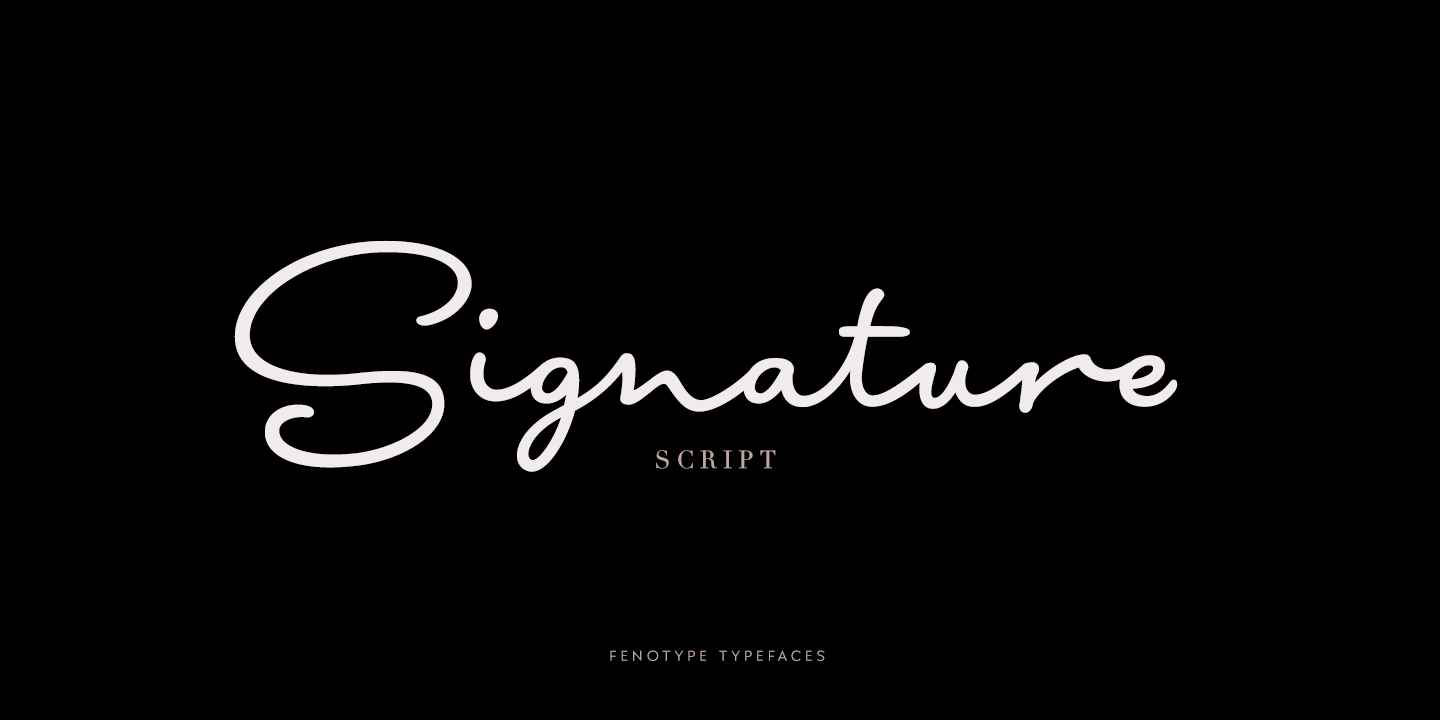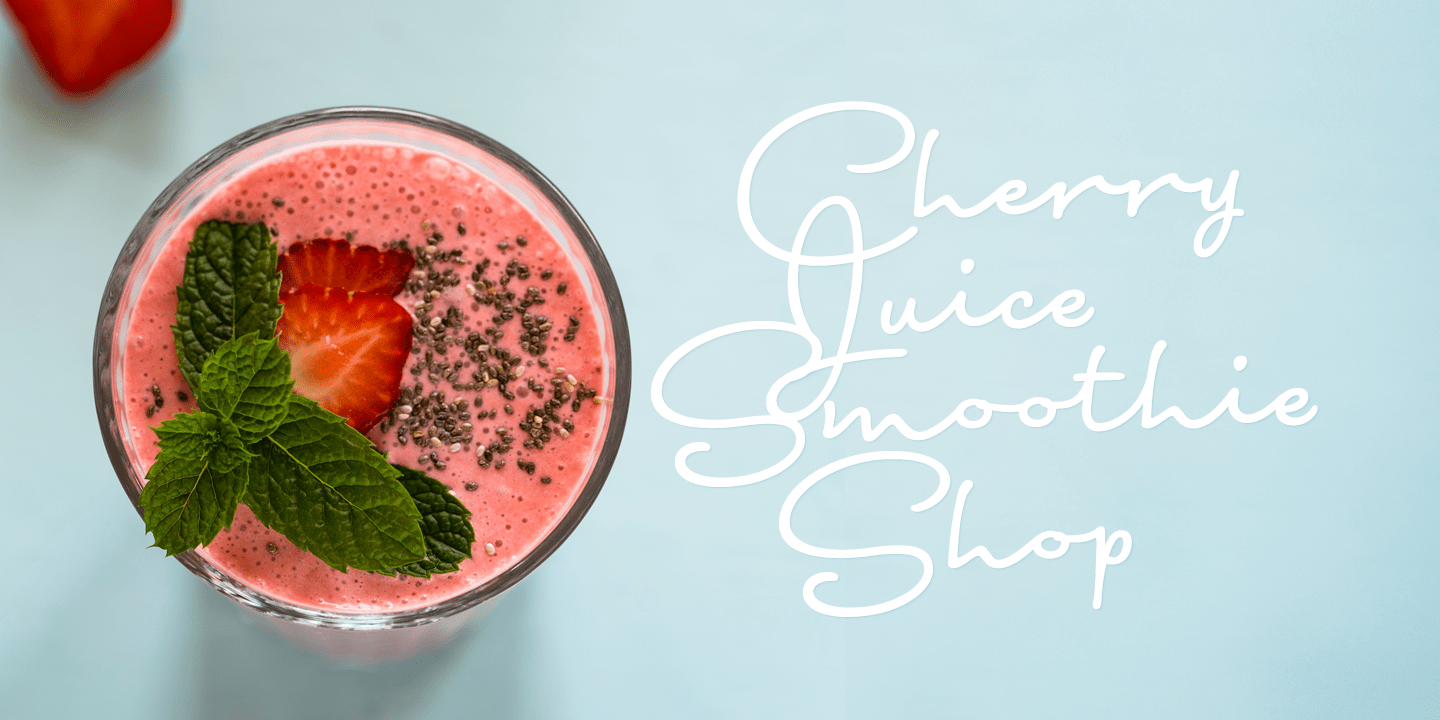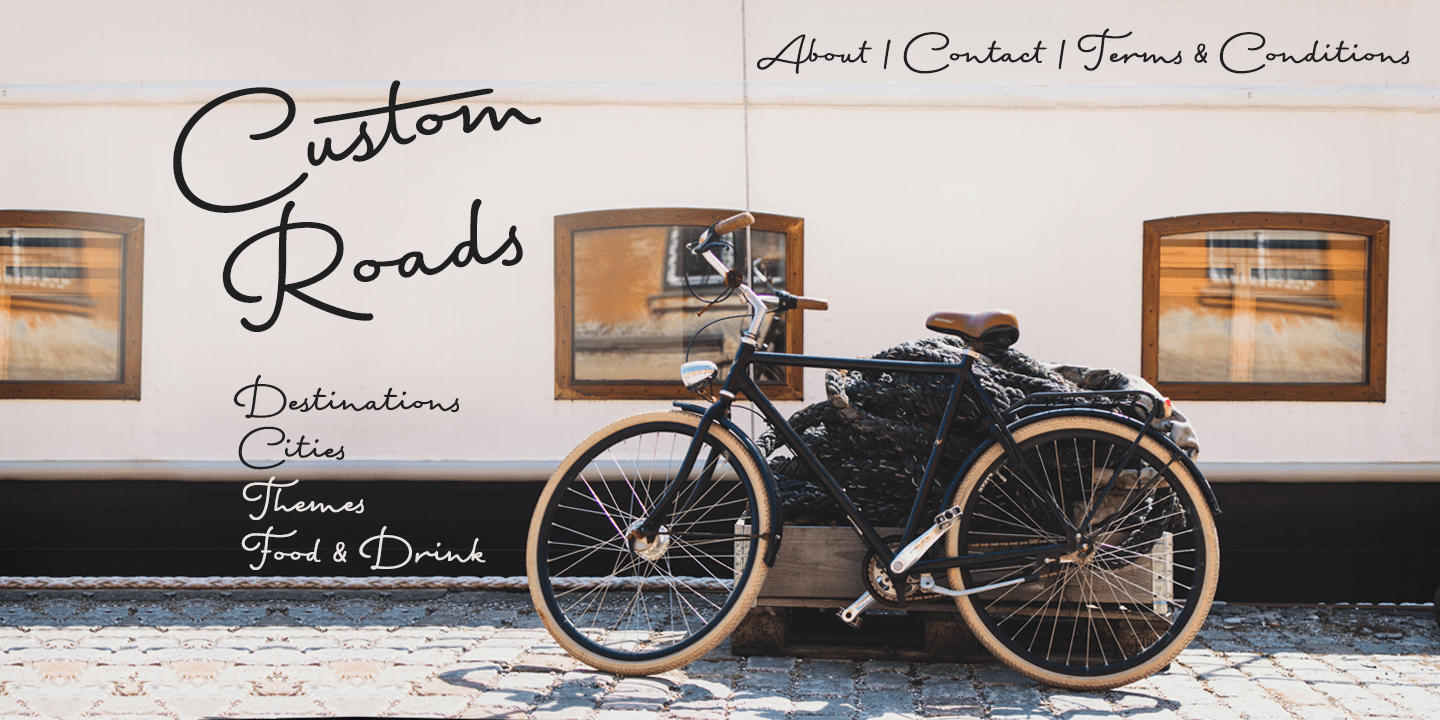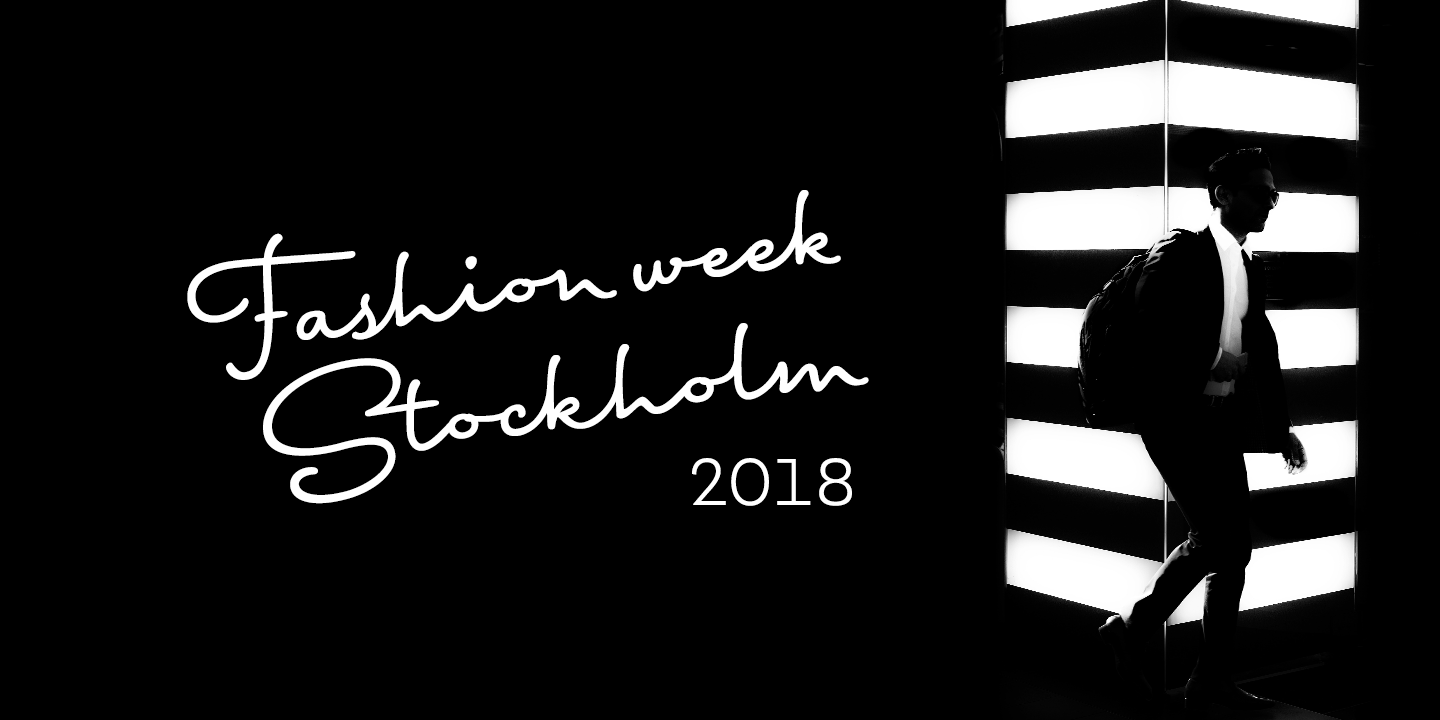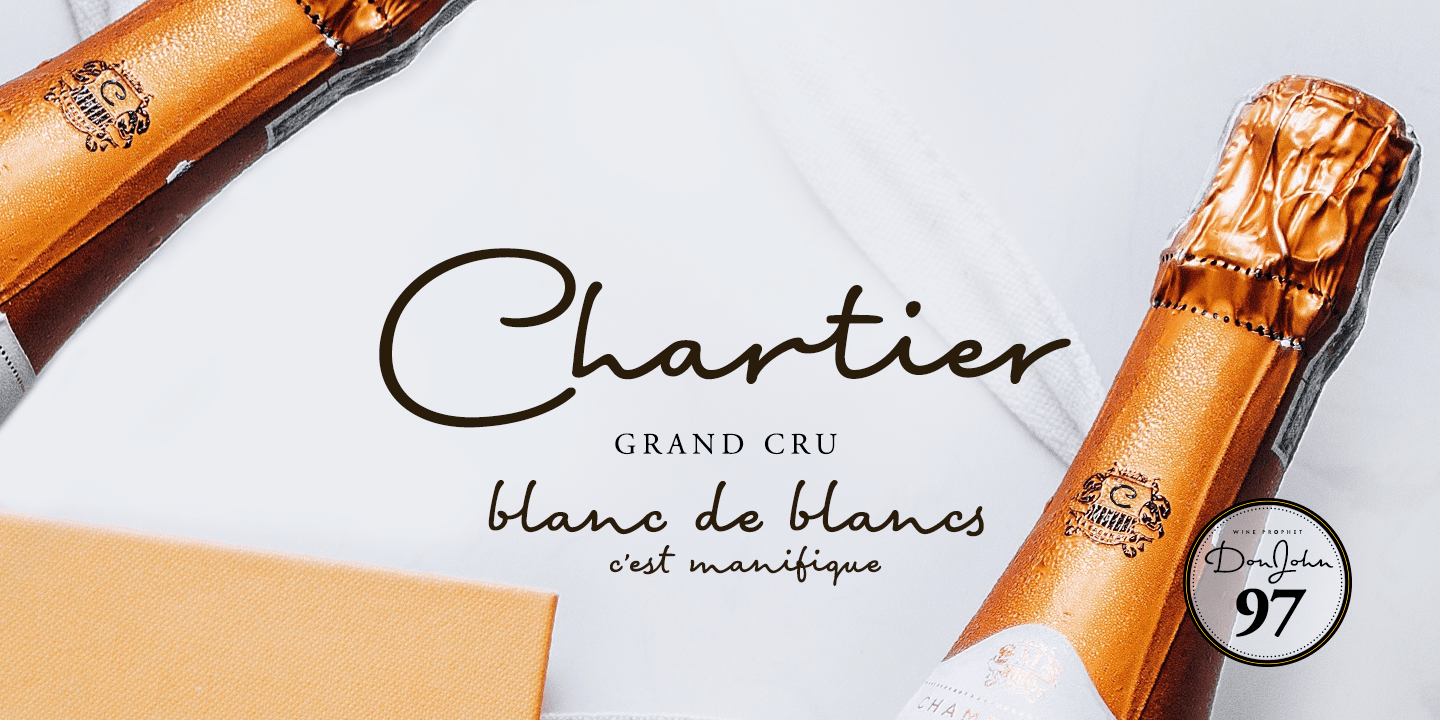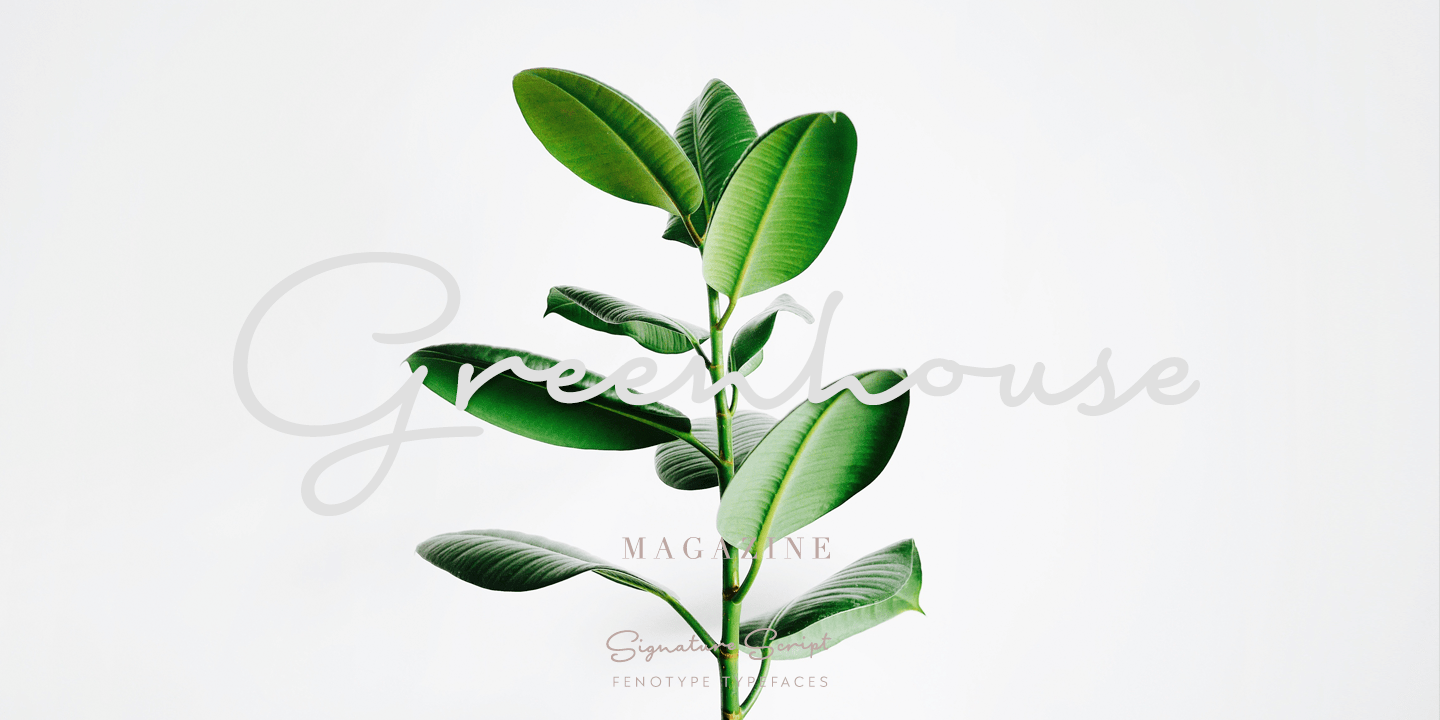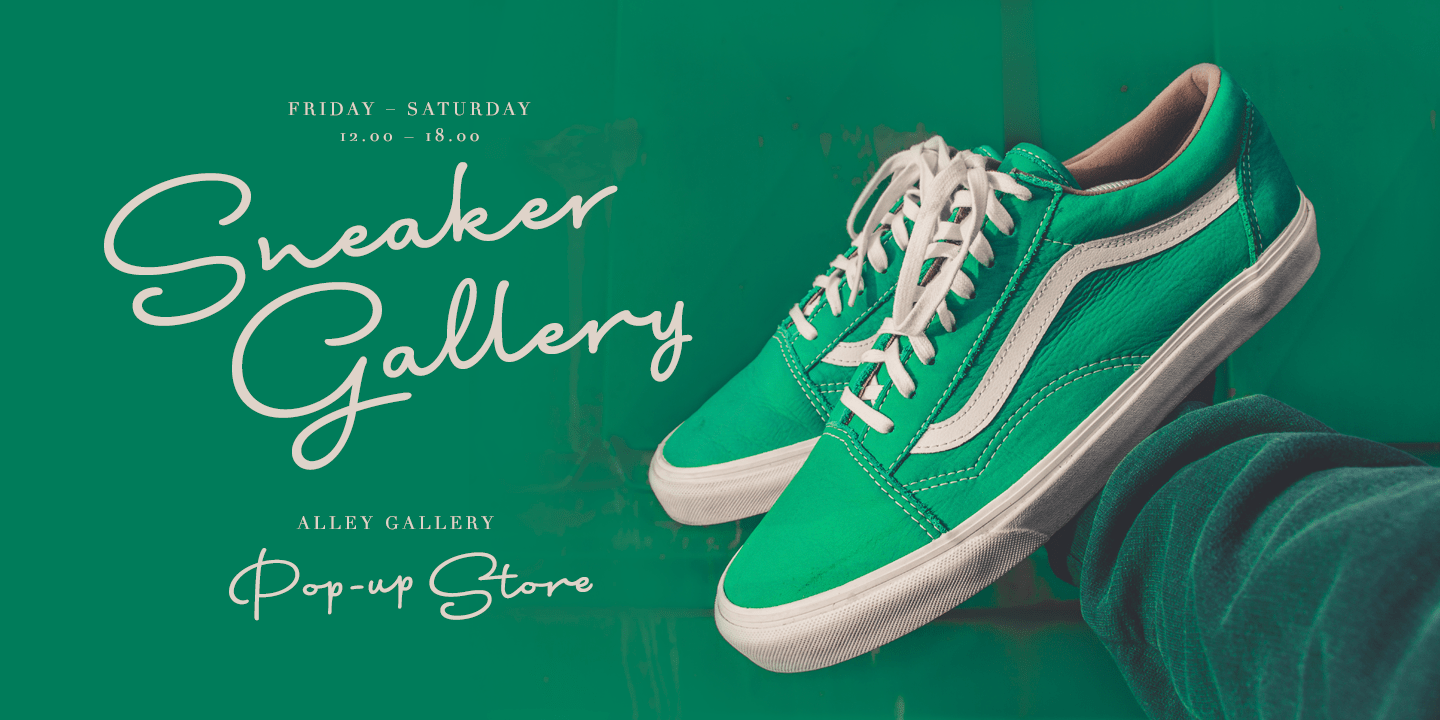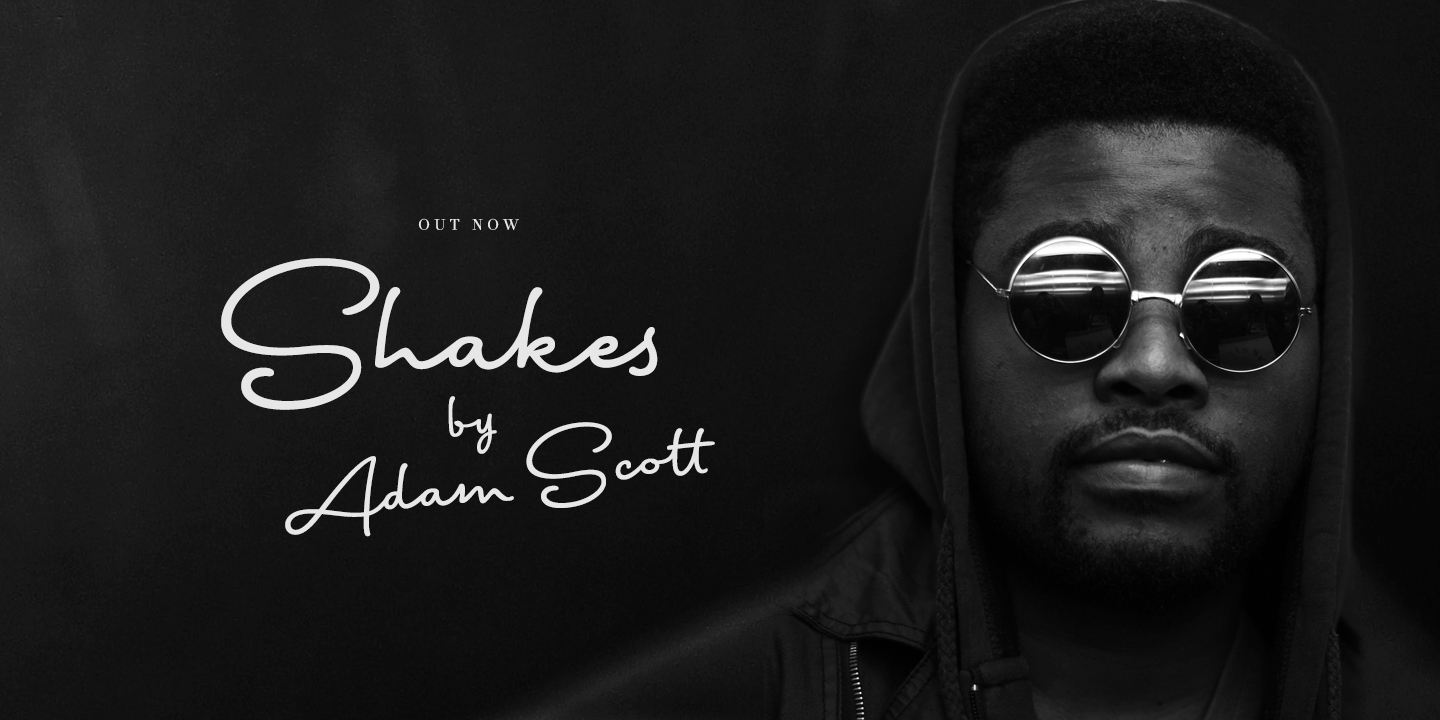
Signature Script Fenotype
Signature Script is a smooth pen script with large display capitals and small but legible lowercase letters. It's ideal for logo, signature, poster, brochure or any display use. Signature Script is great for typing headlines or a restaurant logo - it's stylish but legible enough due to its smooth shapes.
Signature Script has at least three alternates for every basic lowercase letters that are automatically connected to next letter nicely. This feature is coded inside Standard Ligature so I recommend keeping that on. There's also Stylistic Alternates for every standard Uppercase letter and Swash, Stylistic and Titling Alternates on certain lowercase letters that can be used to spice up your words. The font is PUA encoded so you can access extras in most graphic design softwares even without OpenType support.